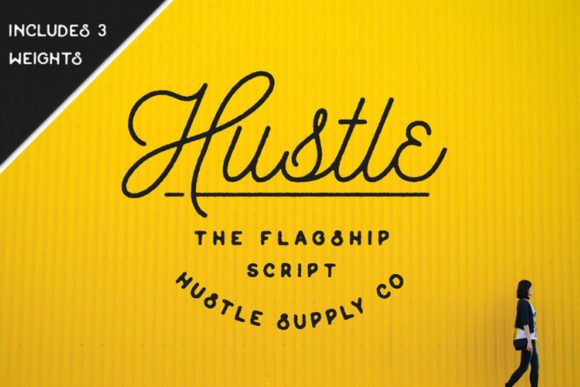
Unleashing Your Inner Hustle
You know that moment when inspiration strikes and you’re itching to create something new? The ideas are flowing, the excitement is building, and you can’t wait to bring your vision to life. For designers, this is the sweet spot where creativity meets productivity, and the right font can be the spark that sets it all off.
Enter the Hustle Font, a sleek and modern typeface designed to fuel your creative ambitions. With three weights to choose from – Light, Regular, and Bold – this versatile font is perfect for anything from bold headlines to elegant body text. Whether you’re working on a branding project, designing a website, or crafting a marketing campaign, the Hustle Font is sure to inspire your next big idea.
So why is the Hustle Font such a valuable tool for designers? Its contemporary coolness and versatility make it a go-to choice for anyone looking to add a touch of sophistication and style to their work.
Hustle Font Key Features
- Unique Characteristics: The font features a modern, geometric design with a unique blend of rounded and angular elements. This creates a dynamic, energetic feel that is perfect for use in branding, advertising, and digital media.
- Kerning and Ligatures: The font includes advanced kerning and ligature pairs to ensure that text is displayed with optimal readability and aesthetic appeal.
Hustle Font Review
I recently had the chance to work with the Hustle Font, and I must say it’s a mixed bag. On the one hand, there are some great features that make it a solid choice for certain projects. ✨
- The Hustle Font has a unique, energetic feel that’s perfect for creating attention-grabbing headlines.
- The font’s bold and playful nature makes it ideal for use in social media, advertising, and other promotional materials.
- The font’s versatility allows it to work well in a variety of contexts, from modern to vintage-inspired designs.
However, there are some limitations that prevent the Hustle Font from being a top choice for every project. ⚠️
- The font’s irregular letterforms can make it difficult to read at smaller sizes or in certain contexts.
- The font’s boldness can be overwhelming in certain situations, and may not be suitable for more subtle designs.
Overall, I’d say the Hustle Font is a solid choice for projects that require a bold, attention-grabbing font. However, it may not be the best fit for every project, and designers should carefully consider the context and intended use before selecting this font.
Tips for Getting the Most Out of the Hustle Font
Use the Hustle Font in bold or italic styles to add emphasis to your text.
Combine the Hustle Font with other fonts to create a unique and eye-catching design.
Use the Hustle Font in combination with graphics and images to add visual interest to your designs.
The Hustle Font is perfect for: